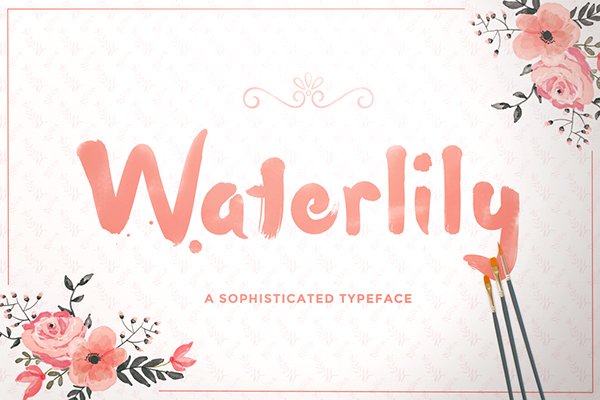
Waterlily font
Waterlily is a free handwriting font inspired to watercolour painting, exclusively released by TheHungryJPEG. It includes over 80 different hand drawn characters for a range of languages and dialects. It is available for both personal and commercial use (no extended license is required).